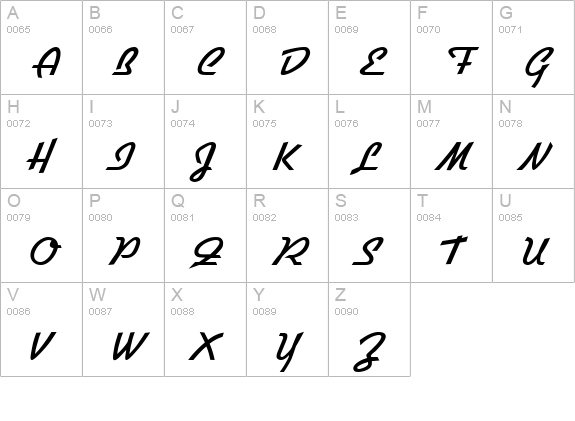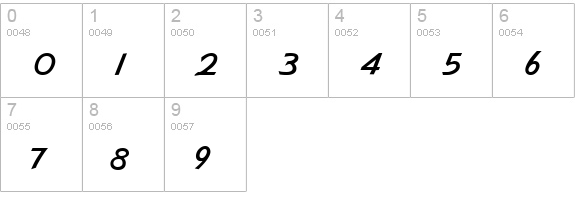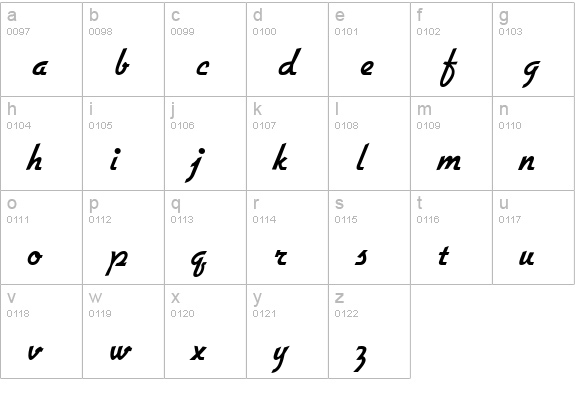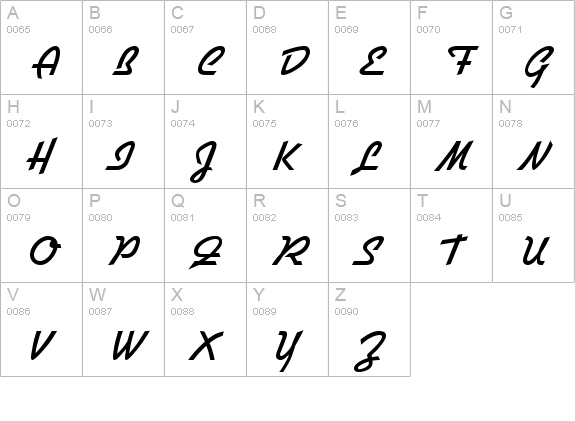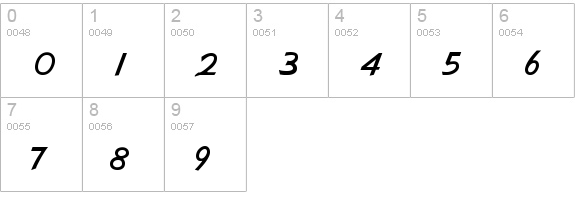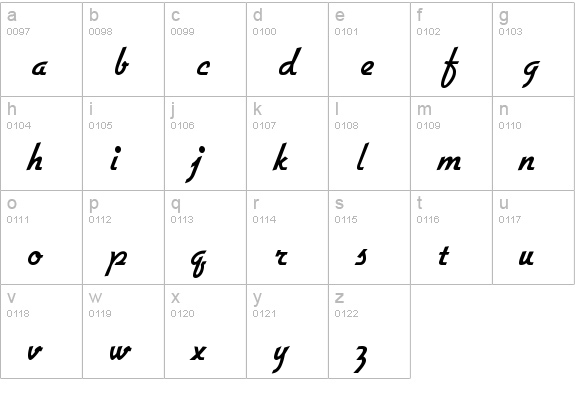
Gillies Bold is a strong, high-contrast variant in the Gillies typeface family \xE2\x80\x94 well suited to headlines, attention-grabbing titles, and strong calls-to-action.
Gillies Bold font is a modern and stylish typeface that exudes confidence and sophistication. With its bold and impactful letterforms, this font is perfect for making a statement in your designs. The strong and commanding presence of Gillies Bold makes it ideal for headlines, signage, branding, and any project that requires a touch of boldness. And the best part? Gillies Bold font is available for free download at FontsMarket.com. Whether you're a designer looking to add a dynamic element to your projects or a business owner seeking a striking font for your branding, Gillies Bold is a versatile choice that will elevate your designs. Download Gillies Bold today and unleash the power of bold typography in your work.